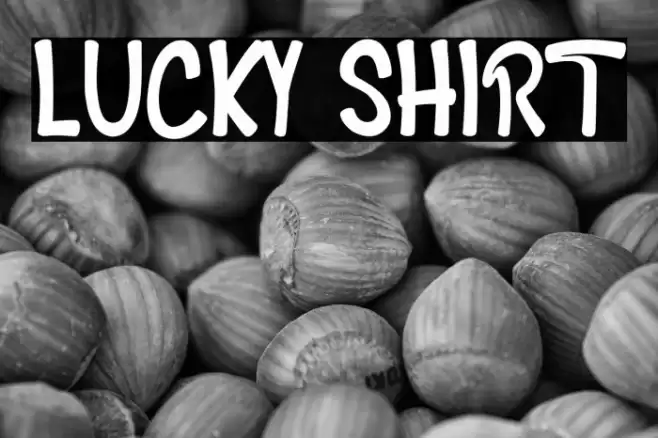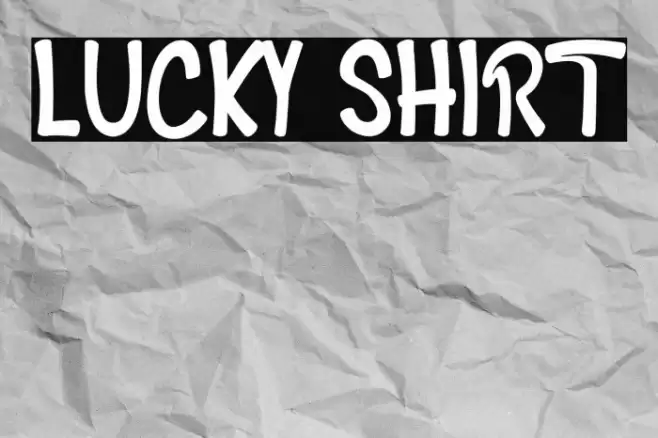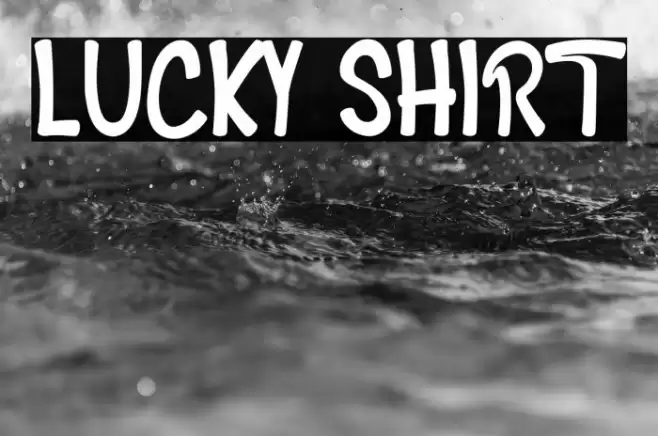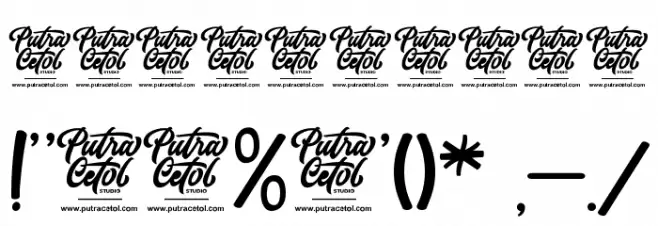
LUCKY SHIRT Font
LUCKY SHIRT Description
This font features a playful and bold style with a handwritten aesthetic. The uppercase letters are slightly wider and have a casual, friendly appearance, while the lowercase letters maintain a consistent flow with rounded edges. The font includes a variety of special characters, adding versatility to its use. Its bold strokes and smooth curves make it stand out, providing a sense of fun and creativity. The overall design is cohesive, with a consistent weight and width across all characters, making it suitable for various design projects that require a touch of personality and warmth.
A playful, bold handwritten font with smooth curves and rounded edges from Regular fonts.
- Proposed Projects: Ideal for children's books, playful branding, greeting cards, and creative posters.
- Overall Style: Playful